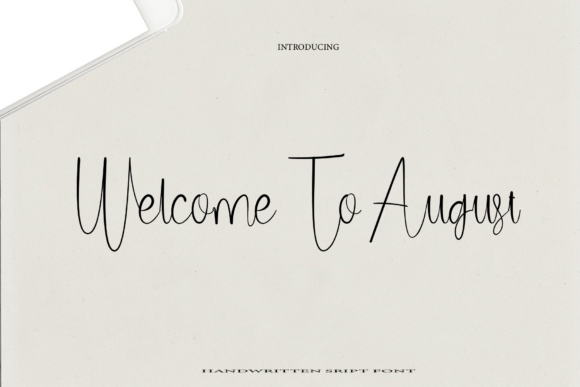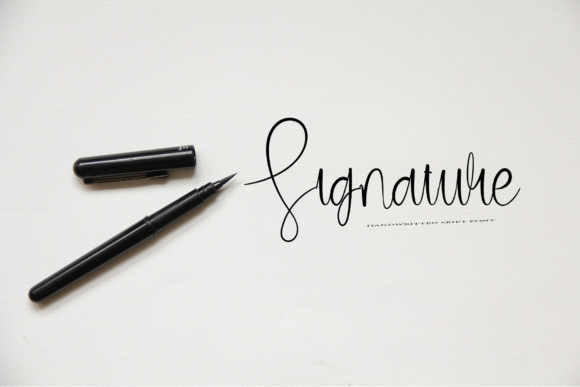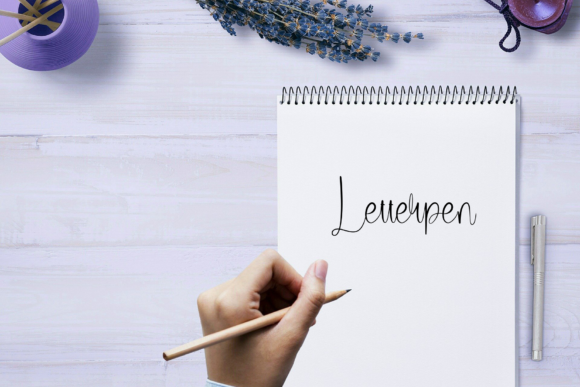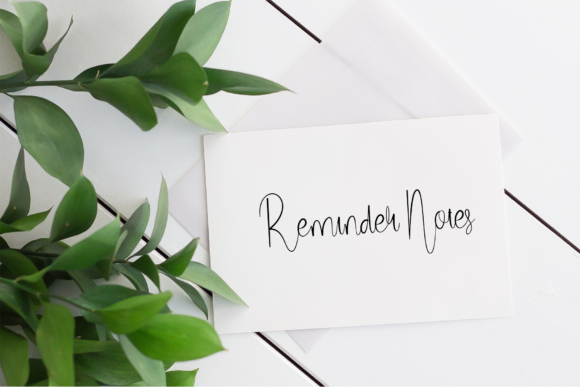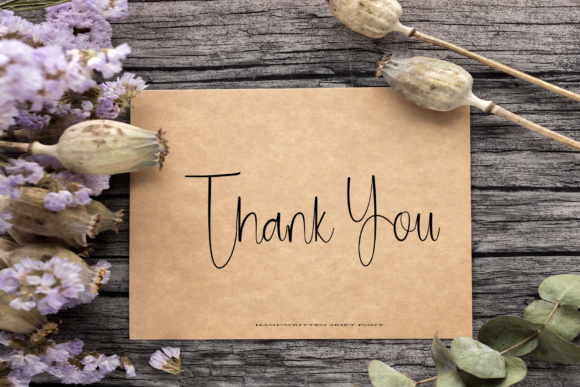
Welcome to August Font
About Welcome to August Font
Welcome to August is a thin lettered and graceful script font. Fall for its ravishing style and use it to create gorgeous wedding invitations, beautiful stationary art, eye-catching social media posts, and much more!